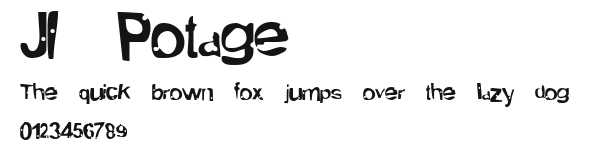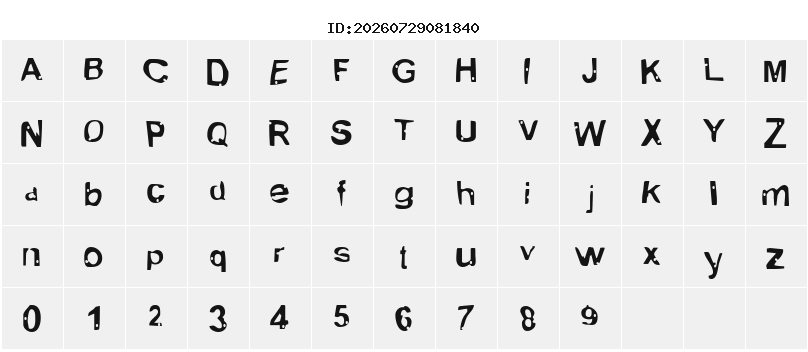
JI-Potage Preview
• Font Name: JI-Potage
• Full Font Name: JI-Potage
• PostScript Name: JI-Potage
• Designer: JupiterImages
About JI-Potage.ttf
JI-Potage.ttf is a modern, elegant sans-serif font designed for ultimate readability and visual harmony. Perfect for branding, headlines, web design, and print materials.